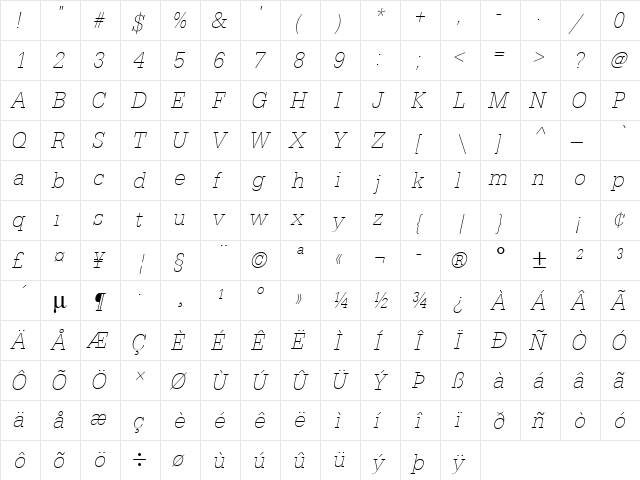
URWEgyptienneTExtLigExtNar Oblique Font Preview
URWEgyptienneTExtLigExtNar Oblique
Design Context for URWEgyptienneTExtLigExtNar Typeface
URWEgyptienneTExtLigExtNar is a composed and adaptable typeface that performs quietly and consistently across a wide range of design contexts. Its italic angle brings a sense of urgency and motion to the letterforms.